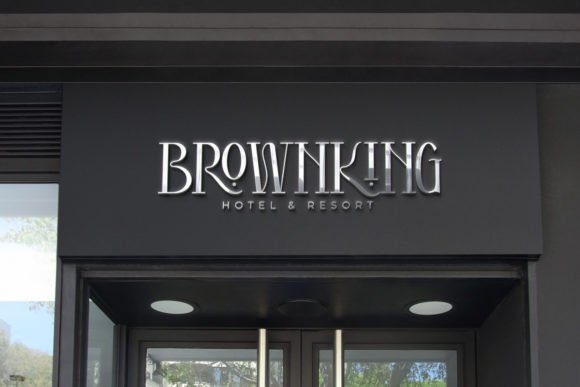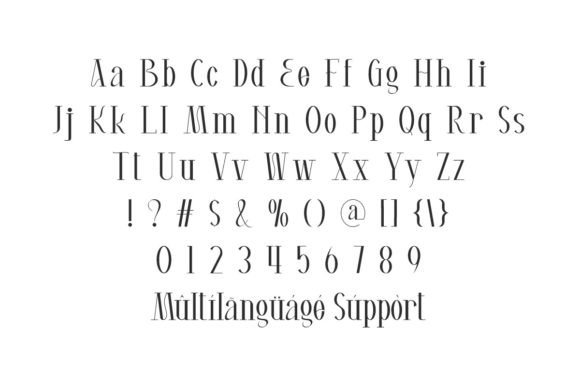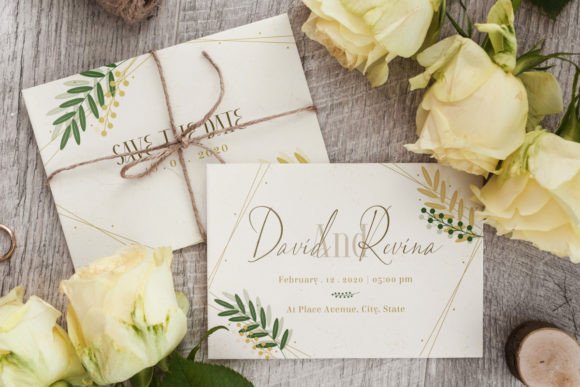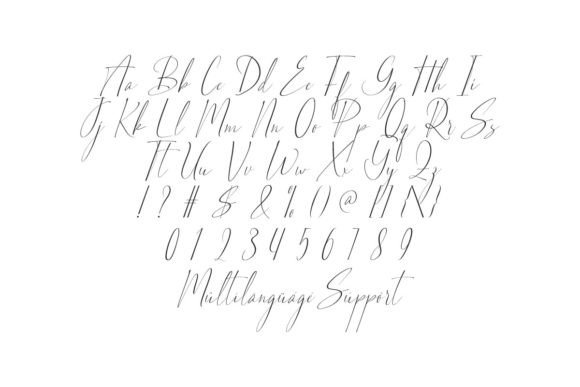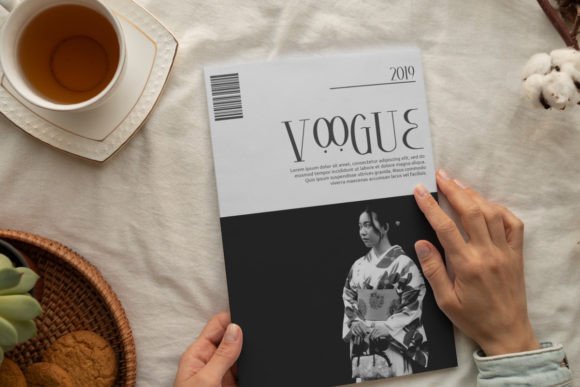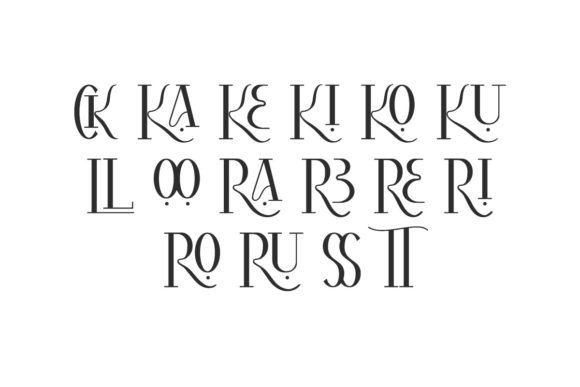
Introduction to Brownking Font
Brownking is a font duo composed of a stylish serif display and a beautiful calligraphy signature script.
These two fonts will give a unique elegant impression in every design you make The fonts will be suitable for any industry such as cosmetic, fashion, florist, homeware, hotel and resort, interior design, restaurant, salon and spa, wedding or event organizer, and many more.